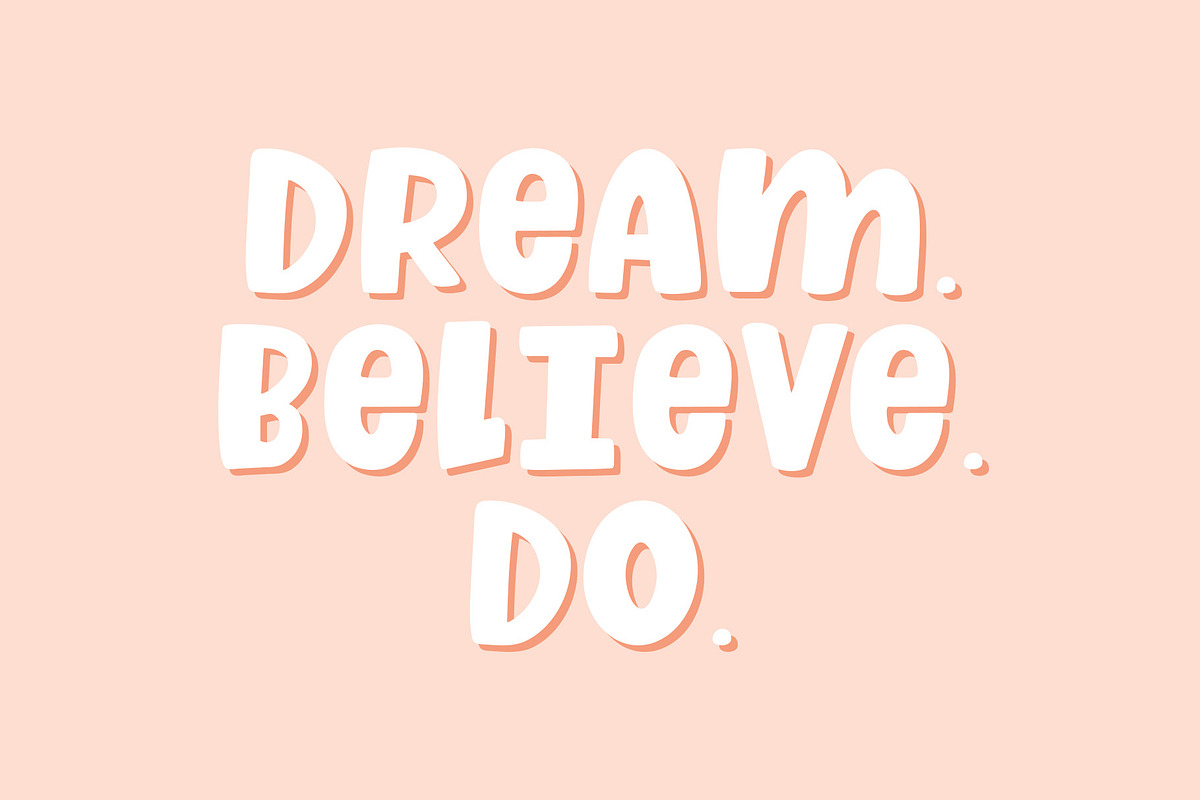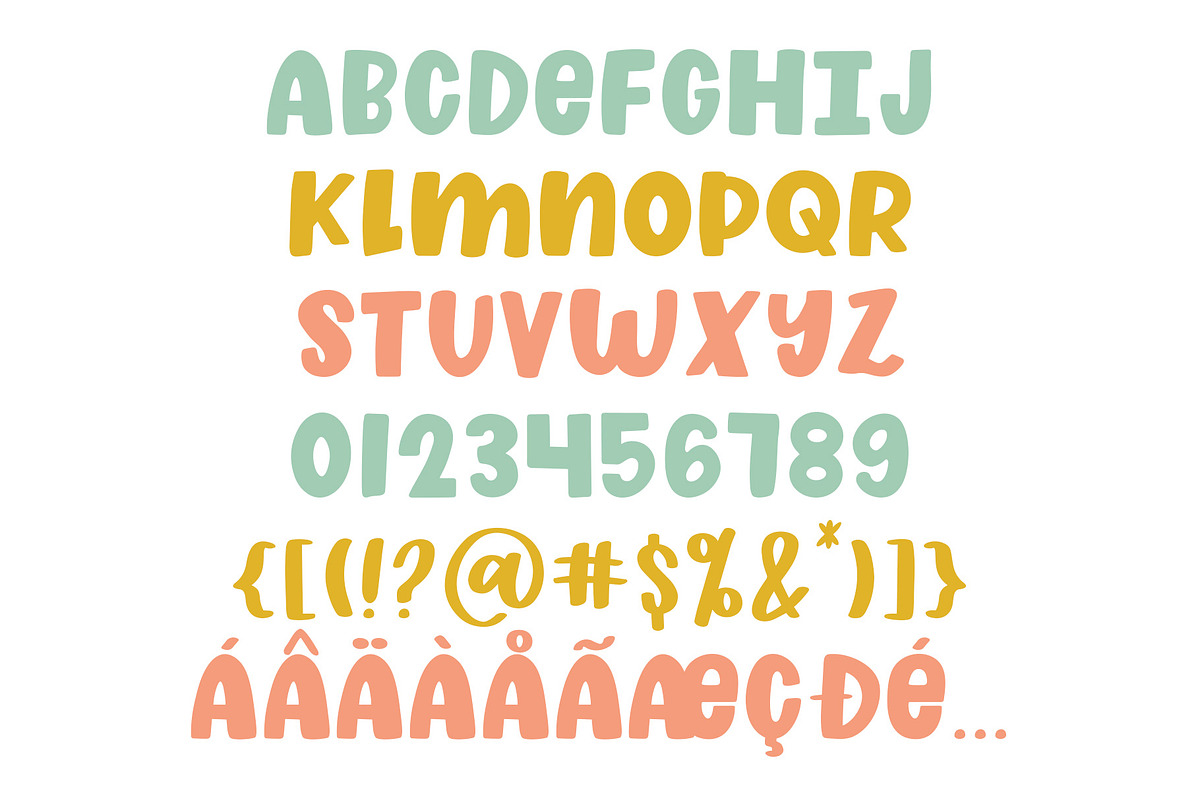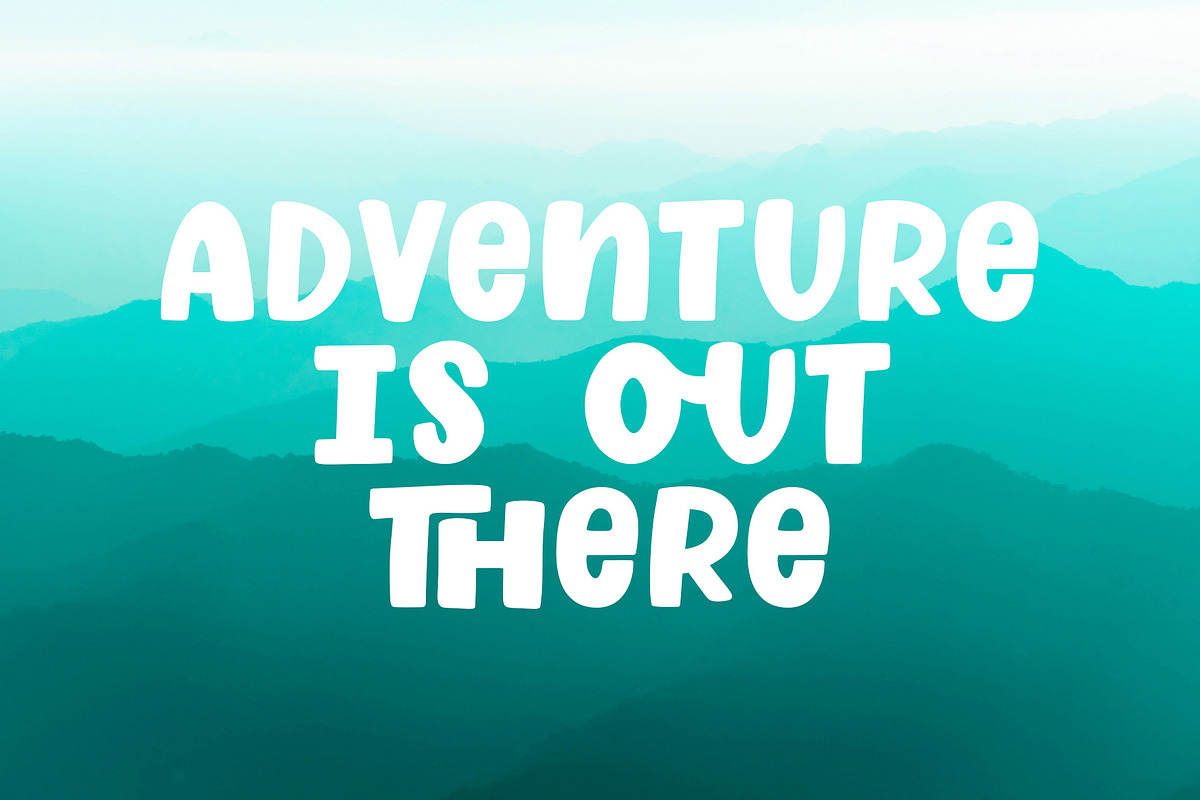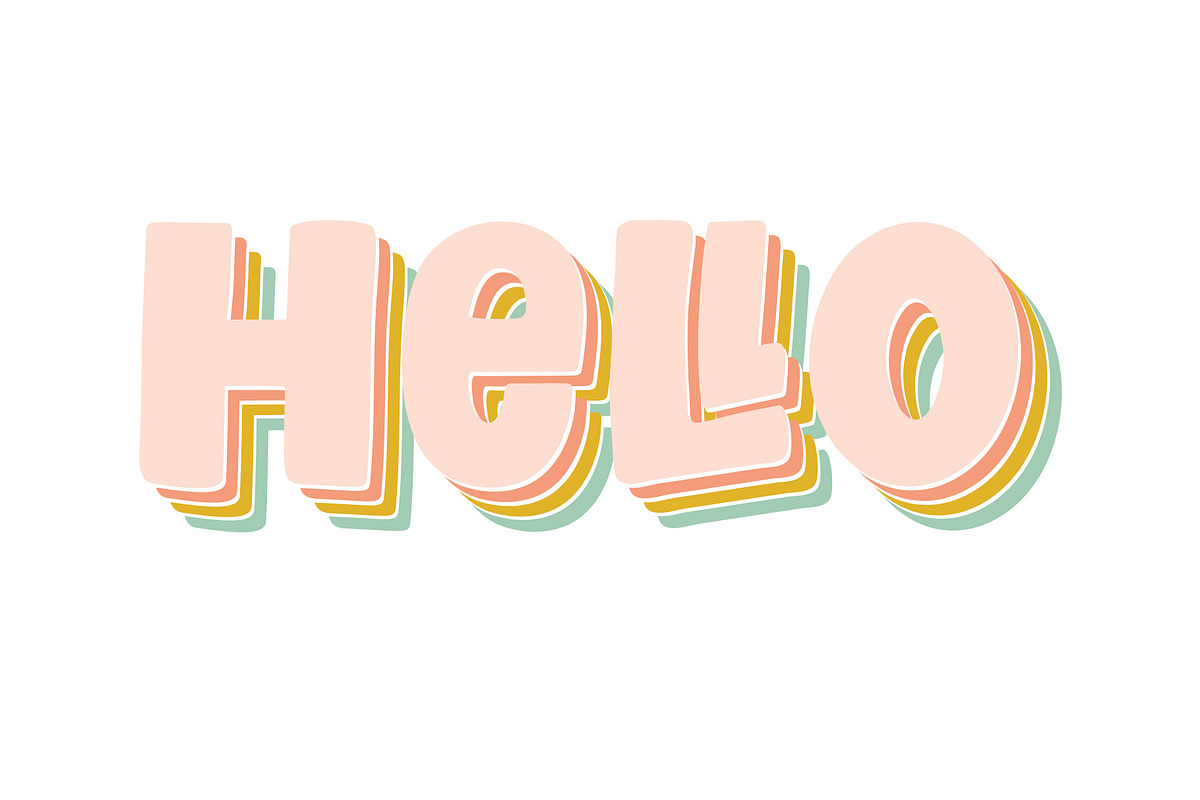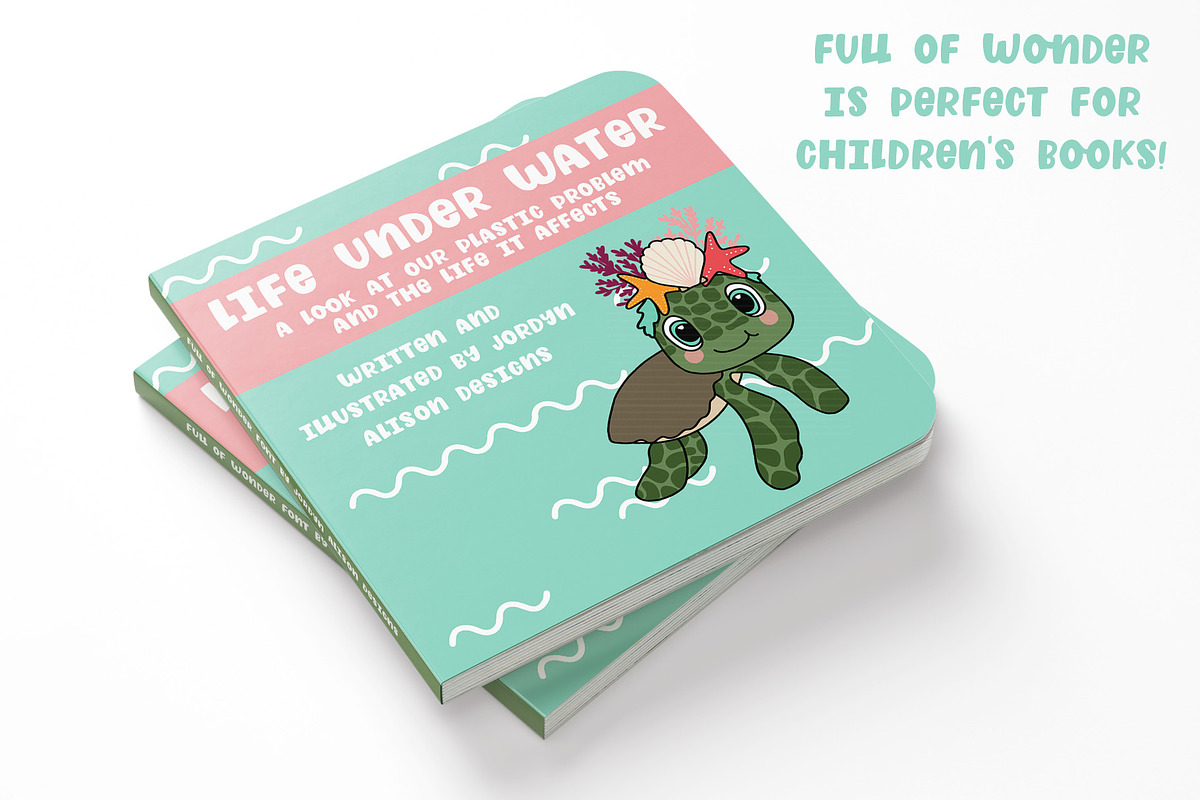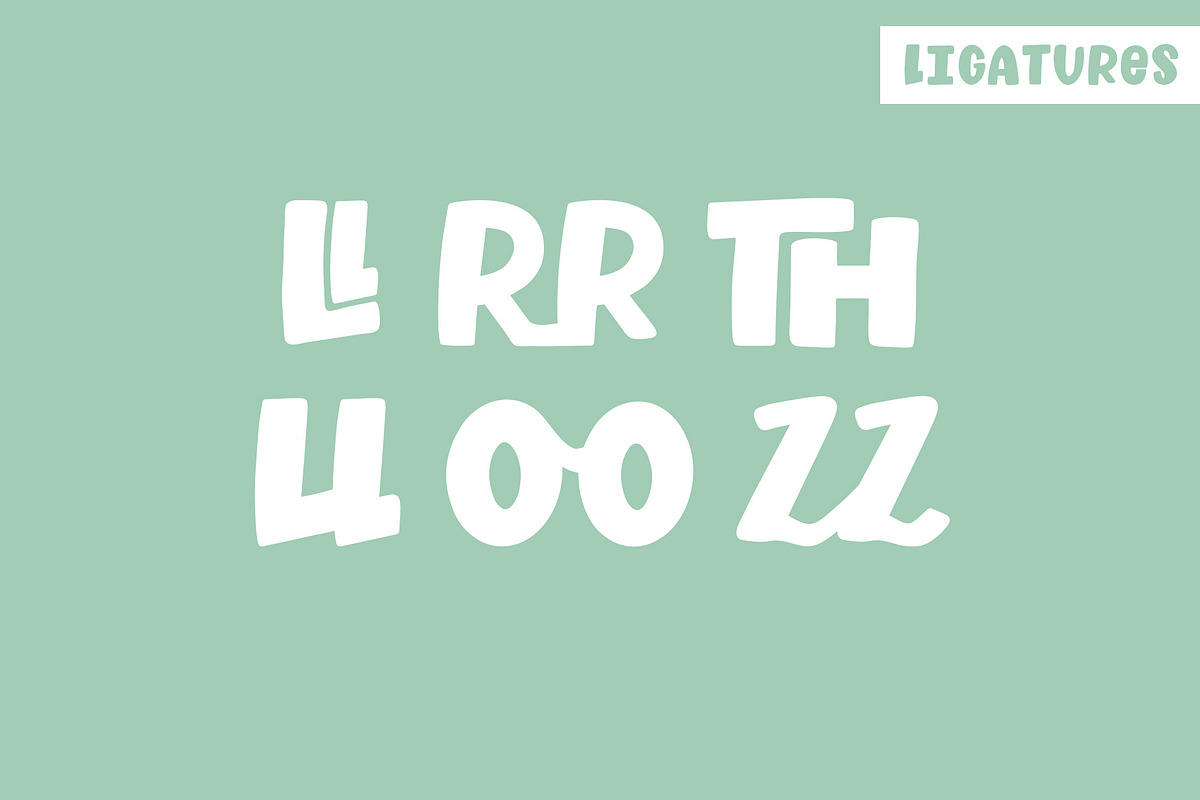
Full of Wonder, Sans Serif Font
Full Of Wonder is a smooth and thick font perfect for crafting with! It's thick which makes it great for children's books, designs, crafts, and so much more!
Full Of Wonder features:
Set of alphabet characters, numbers, punctuation, and symbols
3 standard ligatures & 3 discretionary ligatures
2 alternate characters